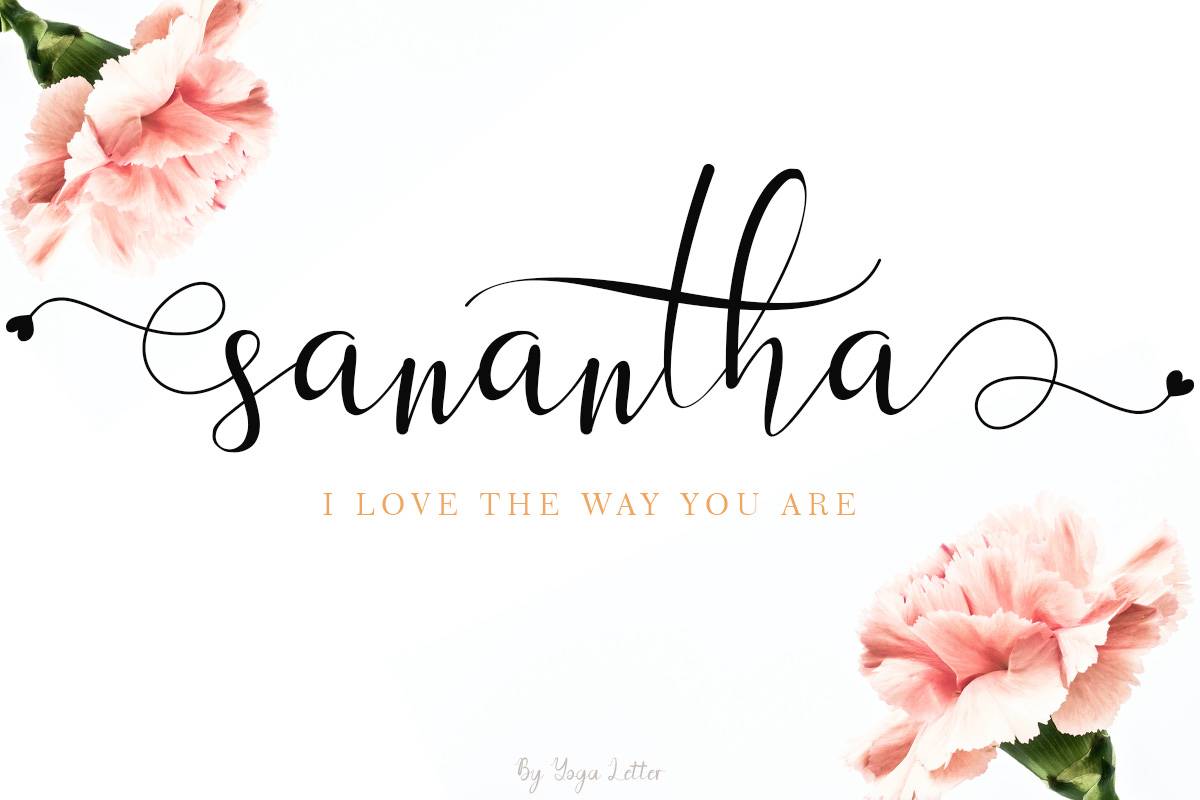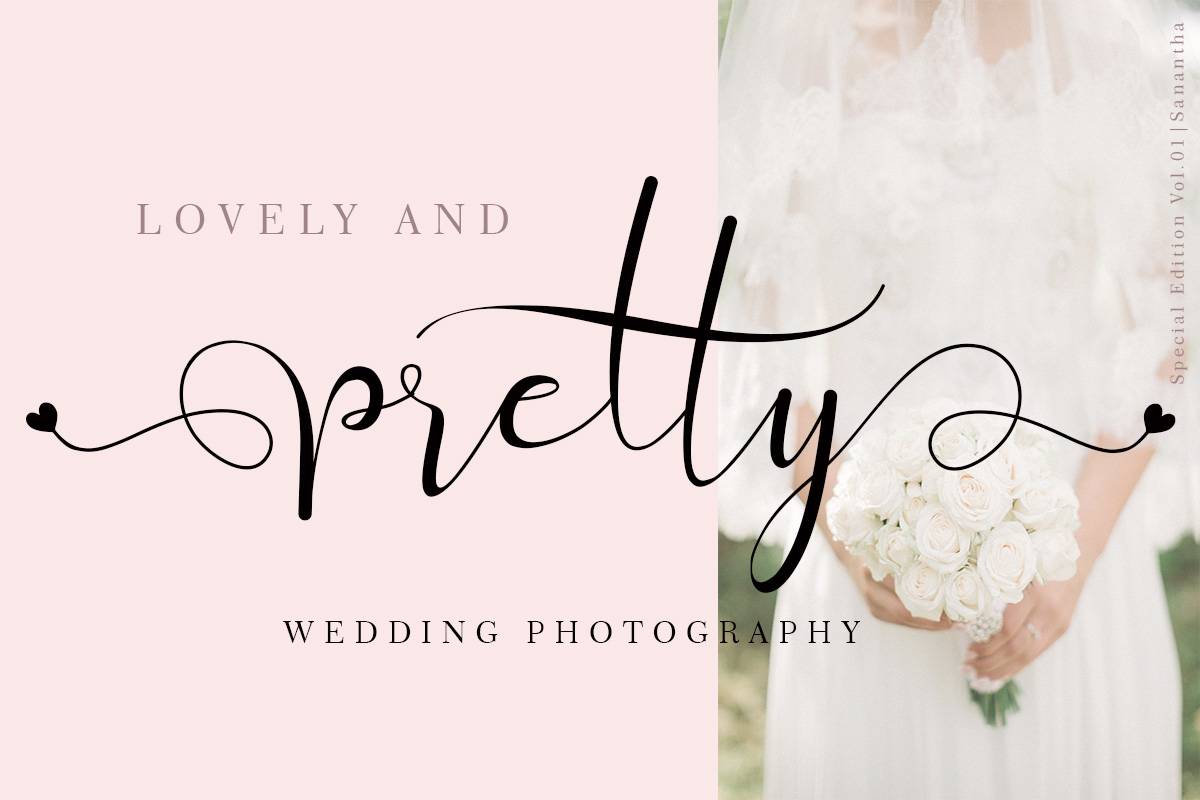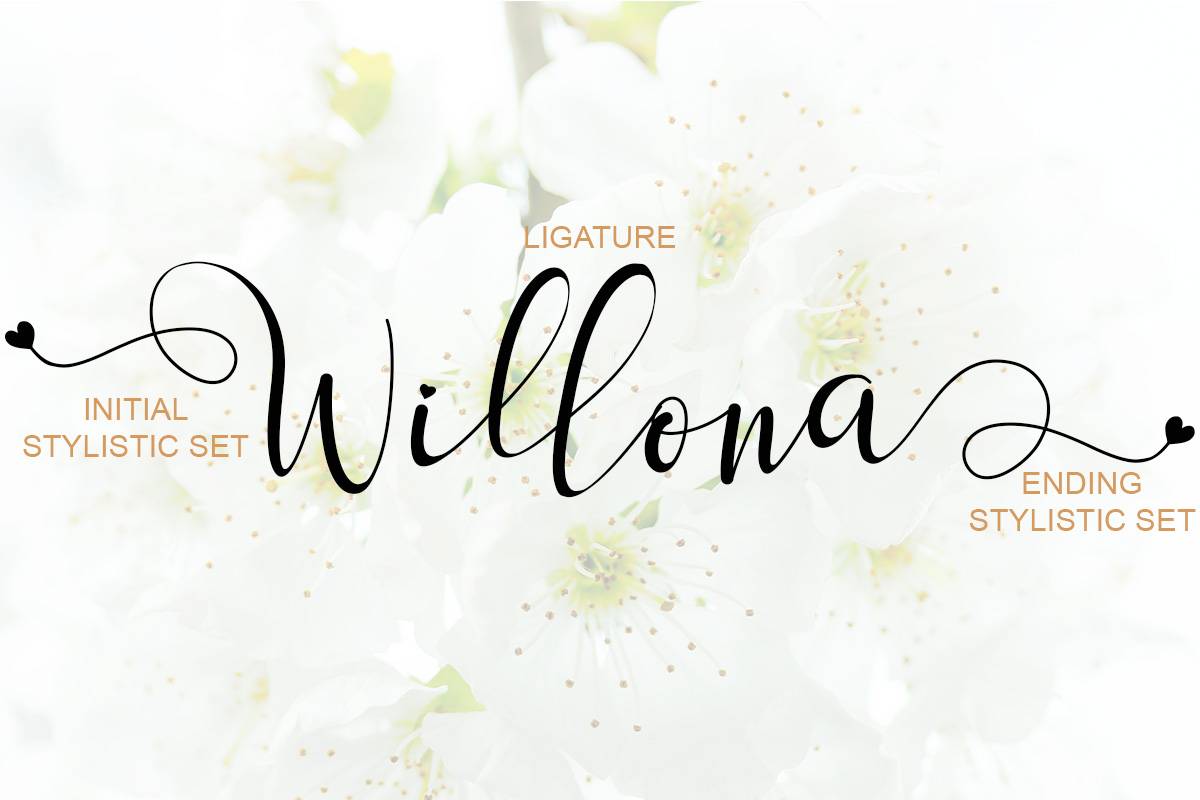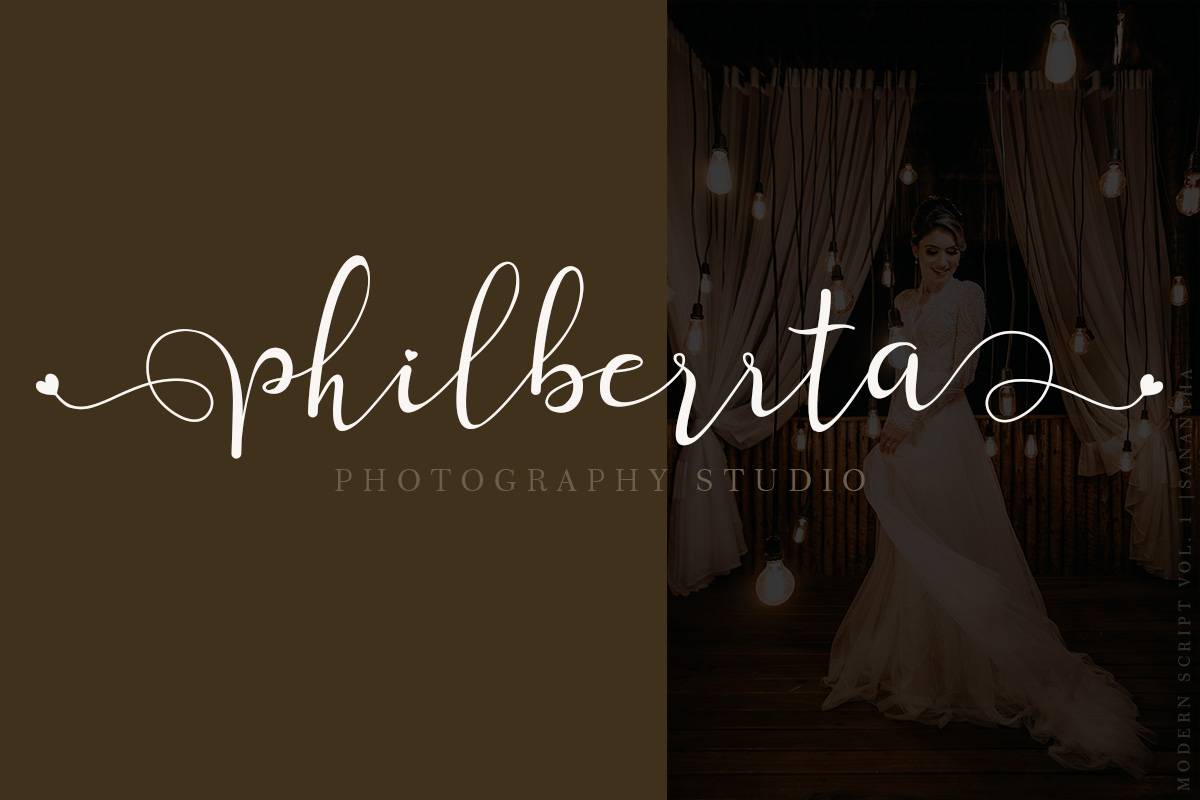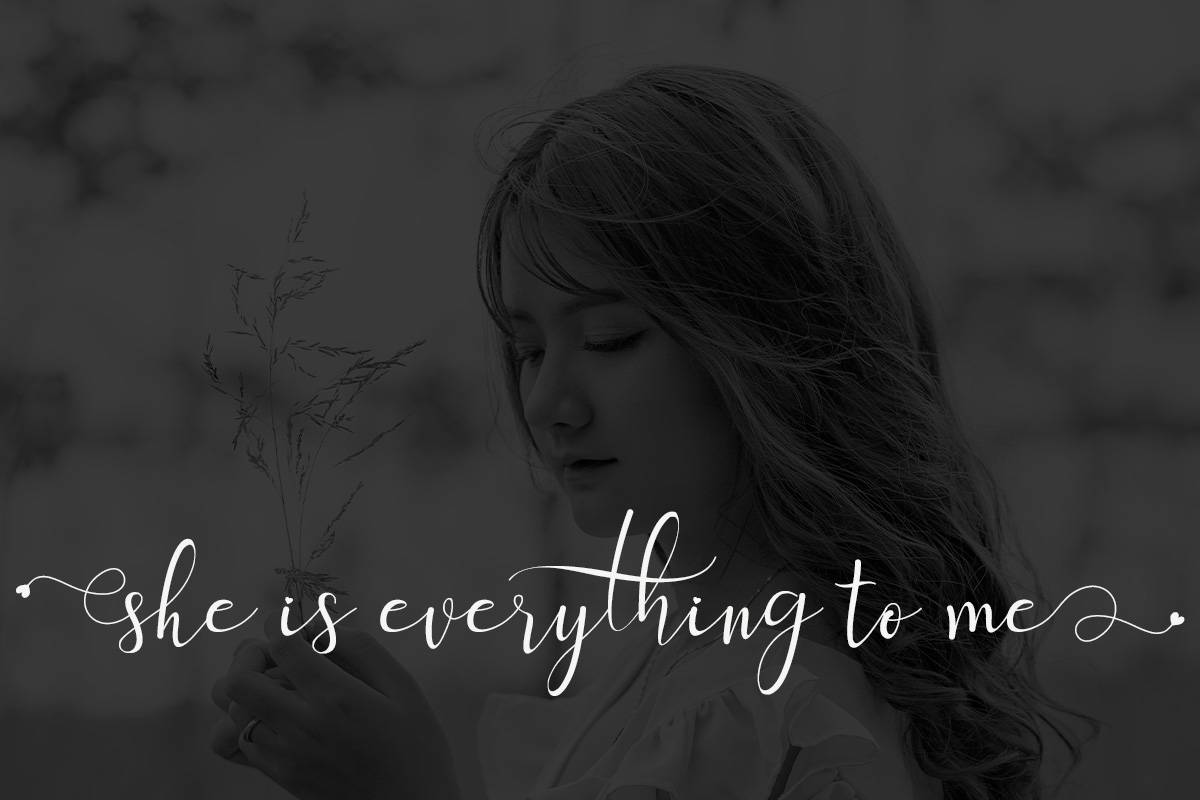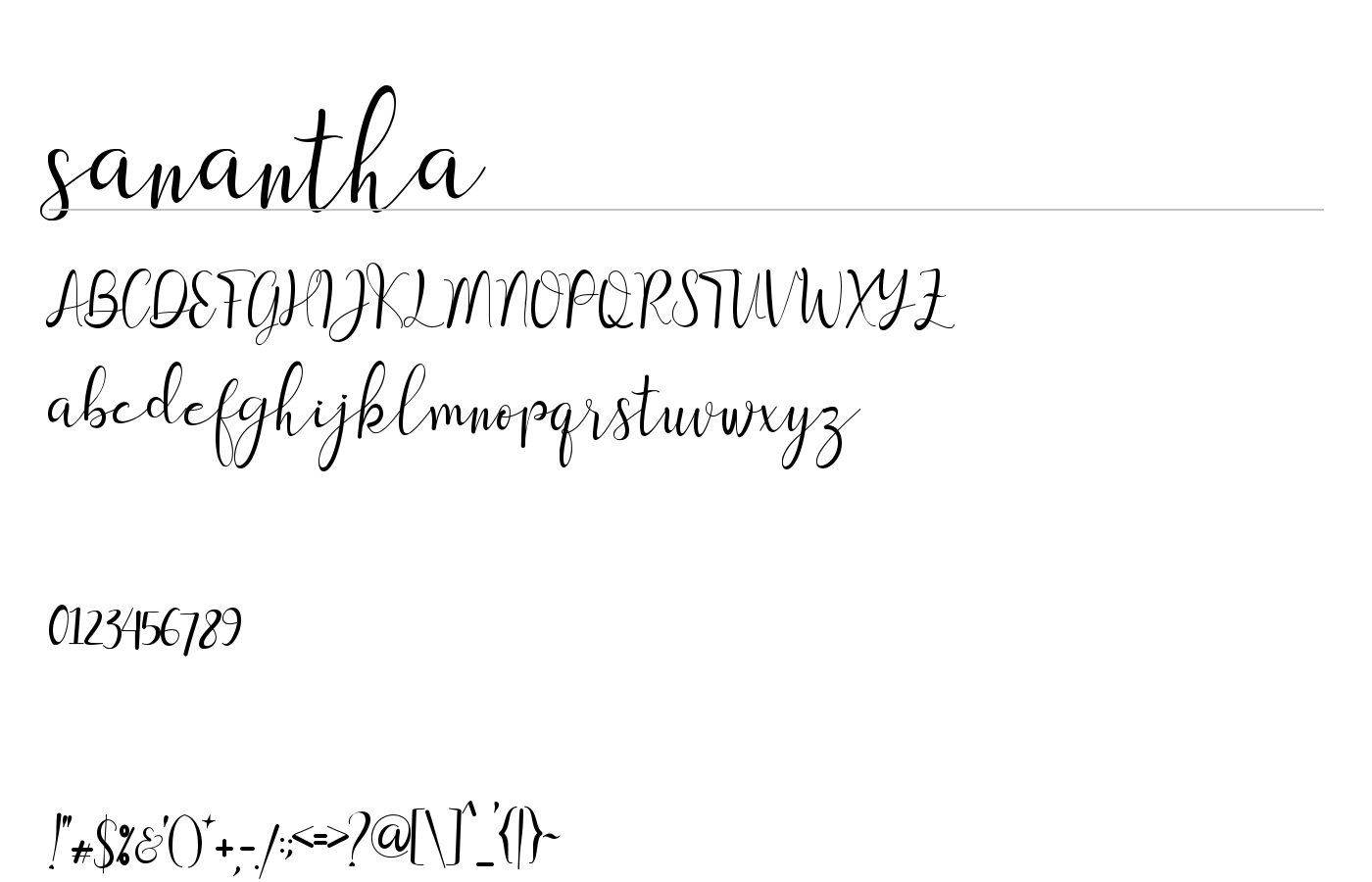
Sanantha is a delicate script font with elegant, flowing letterforms that convey a handmade, personal touch. Its slender strokes and graceful curves make it ideal for romantic, feminine, and sophisticated branding or design projects such as invitations, logos, and stylish packaging. The font’s airy and refined style enhances creative works that seek a charming, intimate vibe.
Sanantha Font
About Sanantha Font
| Font family | Sanantha Font |
| Designer | Yogaletter 2020 (Isroni Yoga Prasetya) |